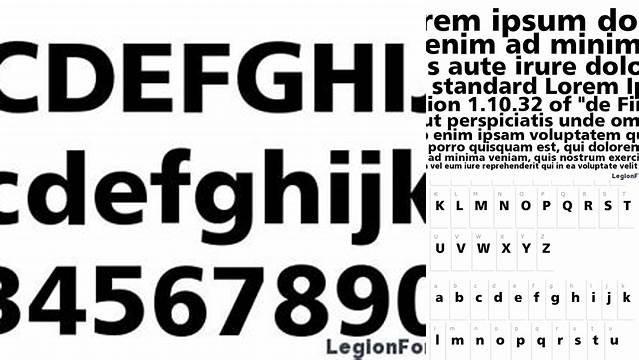
Hey guys, ever needed a clean, professional font that just works? Look no further! Today, we're diving deep into the Humanist 777 BT Black font, offering you a free download, and everything you need to know about this versatile typeface. This font is a real workhorse, and it's used everywhere from official documents to eye-catching design projects. Let's get started!
What is Humanist 777 BT Black?
First things first, what is Humanist 777 BT Black? Simply put, it's a sans-serif typeface known for its readability and clean lines. The "BT" in the name refers to Bitstream, the foundry that originally designed and released this font. Think of it as a modern, easy-to-read option that's great for a variety of applications. This is one of the most popular typefaces in the world, and it continues to be used because it's legible and works very well. Humanist 777 BT Black is a specific weight within the Humanist 777 family, which offers a range of weights and styles, but black is the boldest and most striking. Its primary use is for headlines, titles, and emphasis, and the bold nature of the font makes it stand out from other fonts. The font's neutrality and clean design make it a great choice for almost any project. You can use the font for business and personal use; it's really versatile and adaptable. The versatility is a primary reason for its continued use today. This can be used for various situations that need a clear and easily understood font, and that's the beauty of this specific font.
Key characteristics include:
- Sans-serif design: This means it lacks the small decorative strokes (serifs) found on fonts like Times New Roman, giving it a modern, clean look.
- High readability: Even at smaller sizes, the font remains clear and easy to read, making it ideal for body text.
- Versatility: Suitable for a wide range of applications, from print to digital media.
- Bold Weight: The Black weight packs a punch, making it great for headlines and emphasis.
This makes it a fantastic choice if you want something clean, clear, and easy to use. It's a great font for professional documents, presentations, or even personal projects. With the bold weight, you can create headlines, titles, and other design elements that really grab attention. It's also extremely versatile. The font's bold weight helps with visibility, particularly in digital design. Overall, the simplicity of the font is a major benefit.
Conclusion: Get Started with Humanist 777 BT Black!
So, there you have it! Humanist 777 BT Black is a fantastic, versatile font that's perfect for a wide range of projects. It is a great font to start with for your design projects. With its readability, clean lines, and bold presence, it's a great choice for any project, from official documents to posters and other digital projects. Whether you are a beginner or an experienced designer, it is an excellent choice. Now you know where to get the free Humanist 777 BT Black font download and how to install it. Get creative and start using this awesome font today! Happy designing!